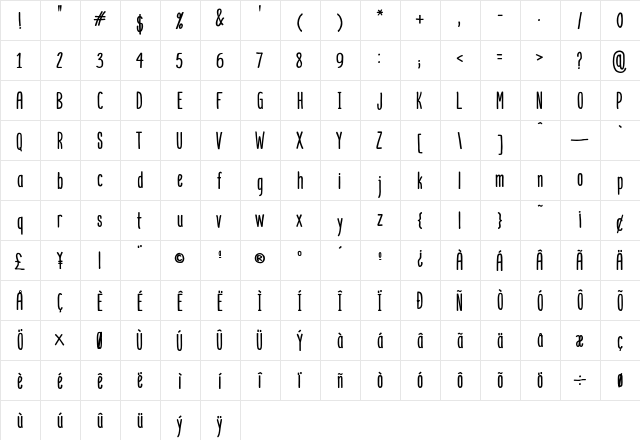
Mangaba Regular
| Foundry | Eliezer Grawe |
| Designer | Eliezer Grawe |
Design Context for Mangaba Typeface
Mangaba is a composed and adaptable typeface that performs quietly and consistently across a wide range of design contexts.